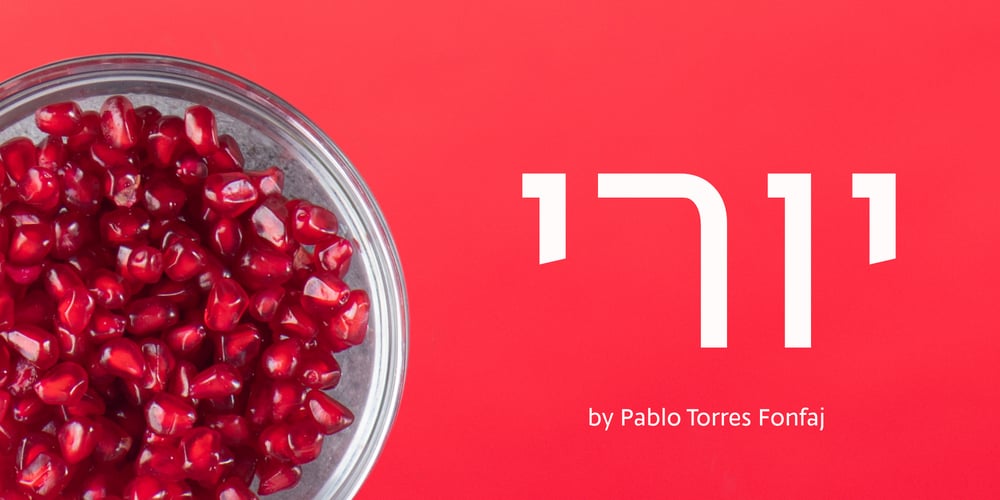
Yuri Font Family was designed by Pablo Torres and published by Tiposureño. Yuri contains 3 styles and family package options. Yuri is a font in the Hebrew alphabet, ideal for titles and packaging.